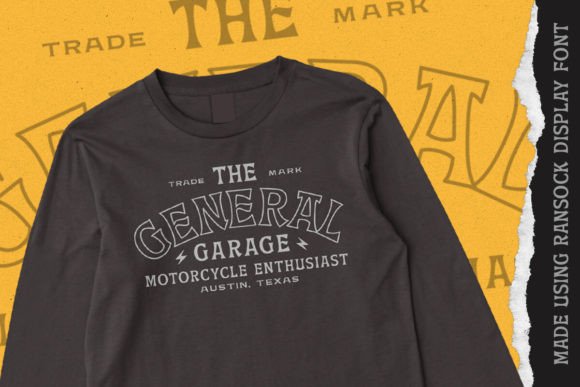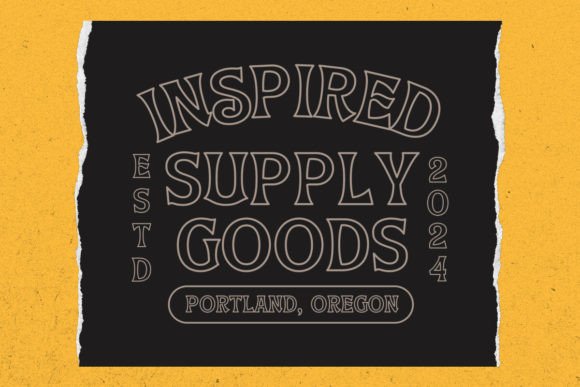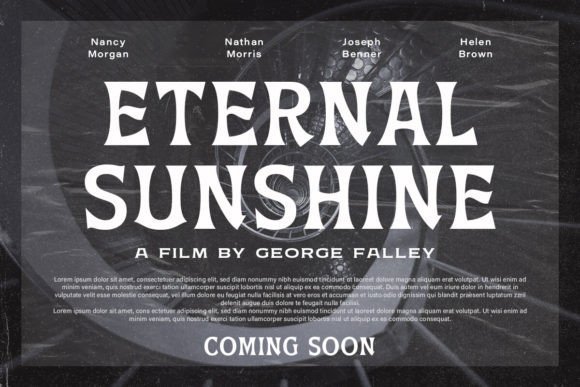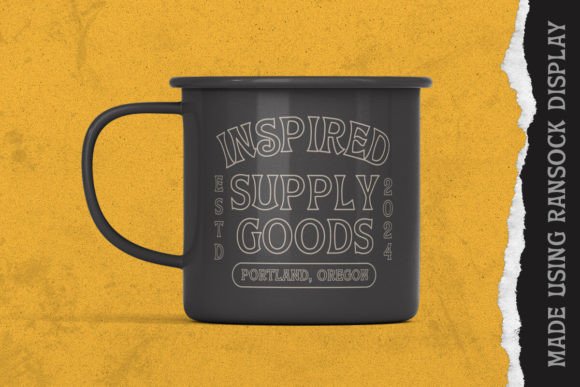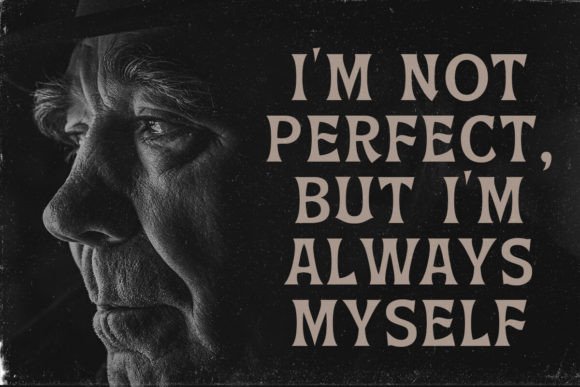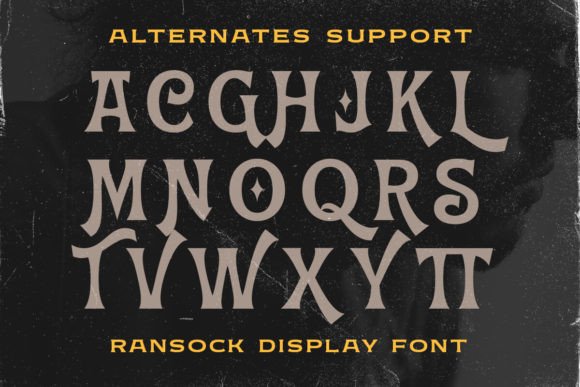
Introduction to Ransock Display Font Font
Fonts play a crucial role in design, and the Ransock Display Font font is a typeface that brings both character and versatility to any project. Whether you’re working on a branding project, a website, or a print design, the Ransock Display Font font offers a unique style that can elevate your work.
Ransock Display is a vintage display font.
Itβs inspired by modern feels and classic looks This font perfectly made to be applied especially in logo, and the other various formal forms such as invitations, labels, logos, magazines, books, greeting / wedding cards, packaging, fashion, make up, stationery, novels, labels or any type of advertising purpose.
Key Features of Ransock Display Font Font
Why Choose Ransock Display Font Font?
The Ransock Display Font font is more than just a typeface β it’s a design tool that helps you communicate your message with style and clarity. Its unique character set and versatile design make it suitable for a wide range of applications, from elegant invitations to bold headlines.
With its carefully crafted letterforms and balanced proportions, the Ransock Display Font font ensures readability and visual appeal across all mediums.
What makes Ransock Display Font font special?
The Ransock Display Font font stands out with its unique design, exceptional readability, and versatility across various design applications.